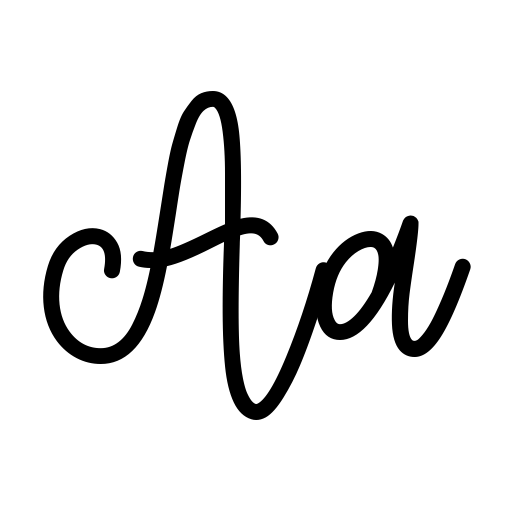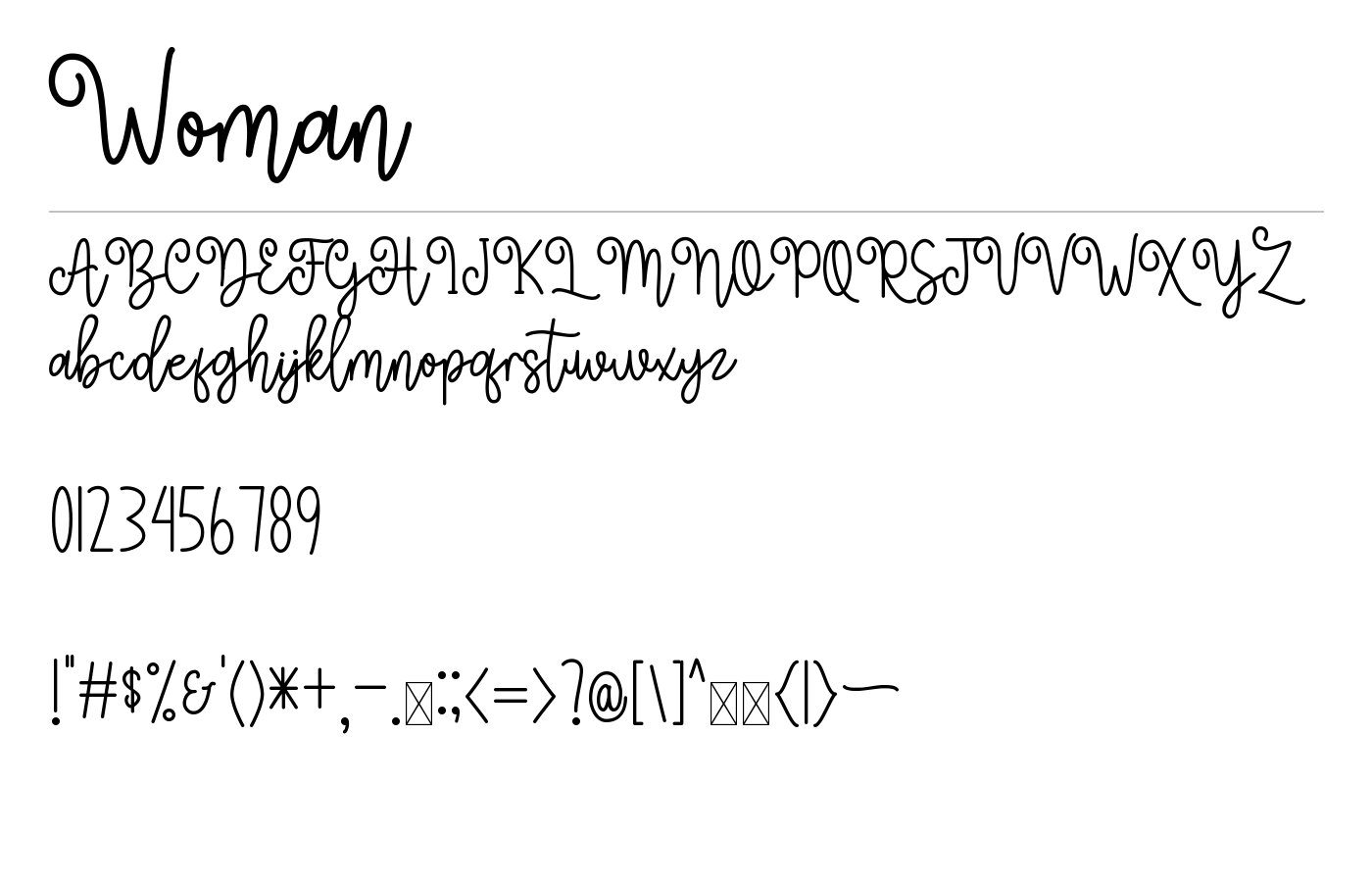
Woman Font is a delicate and playful handwritten script featuring tall, slender letterforms with elegant loops and curls, adding a whimsical, feminine charm. Its light weight and airy spacing make it perfect for creative projects, invitations, and branding that seeks a personal, approachable, and stylish feel.
Woman Font
About Woman Font